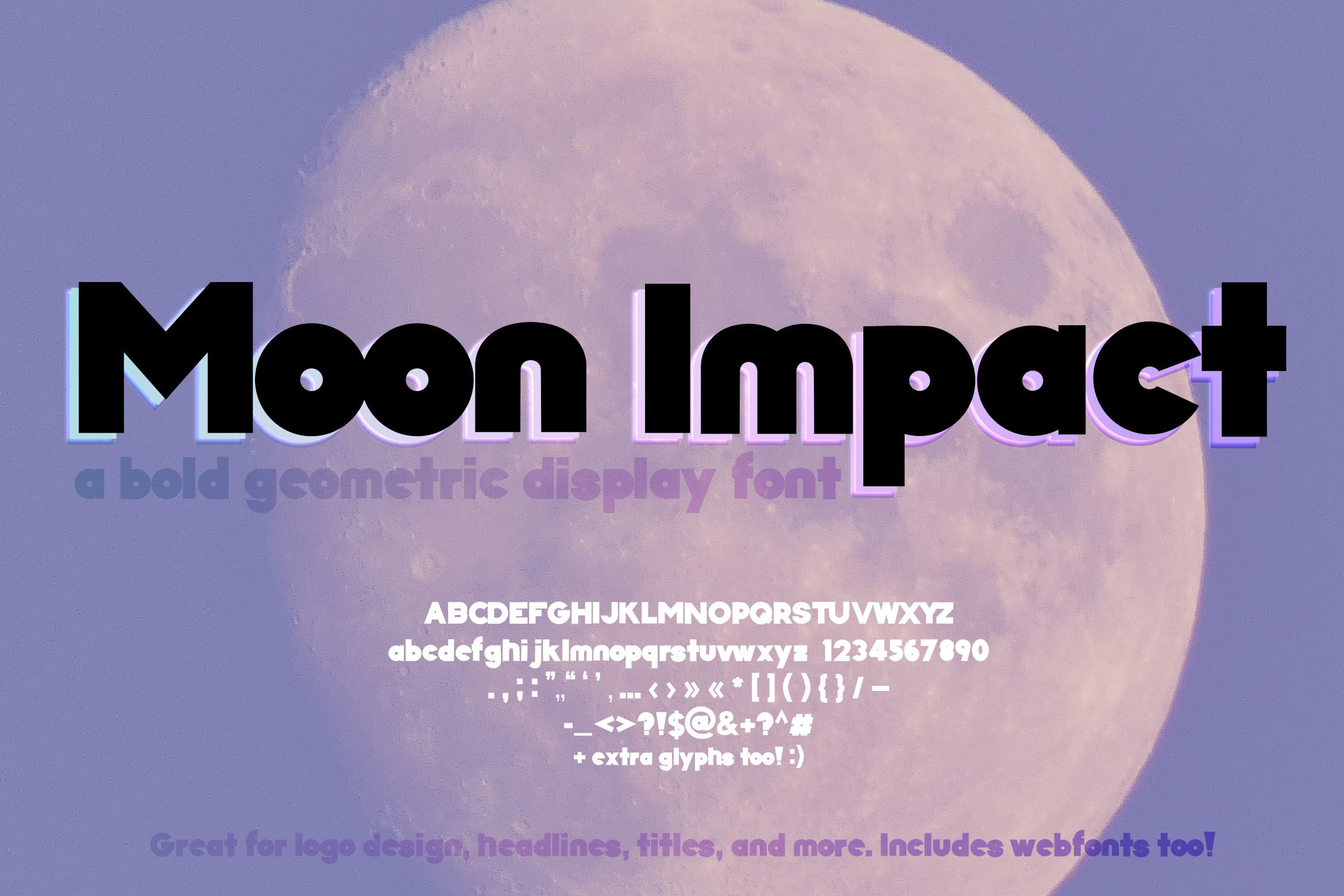
Introducing Moon Impact Font, a geometric font with a bunch of aesthetic font inspiration at play.
I love cool fonts that take inspiration from geometry, and that was my inspiration here. Sleek fonts with a round look can be great for logos, headlines, and much more.
This font draw drawn by me with vector tools. I hope you enjoy it as much as I enjoyed creating it. 🙂 This cool font is dedicated to my partner, my favorite star gazing friend.